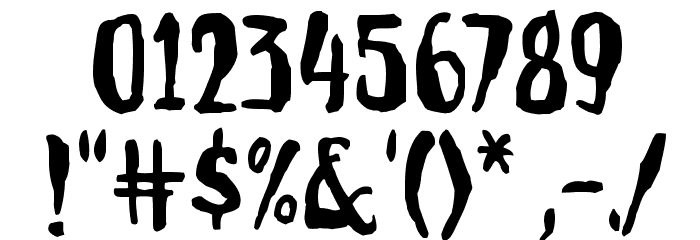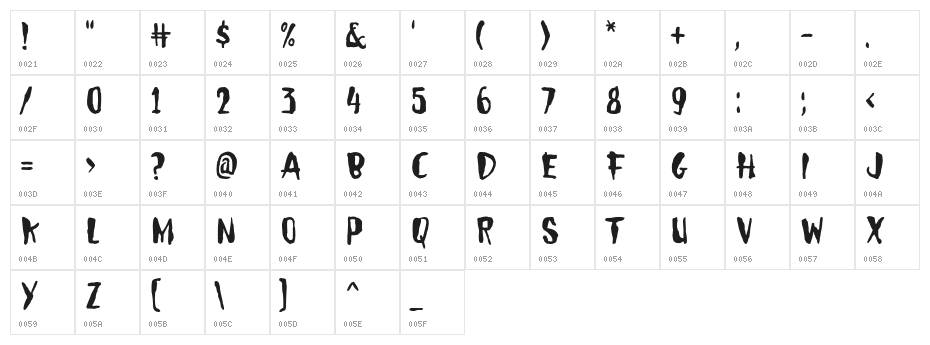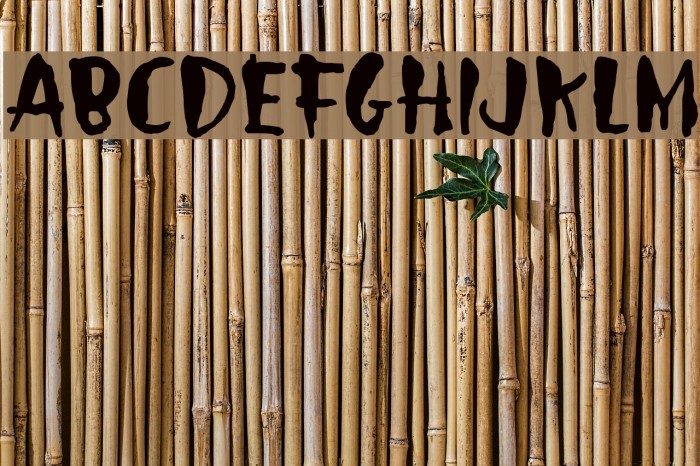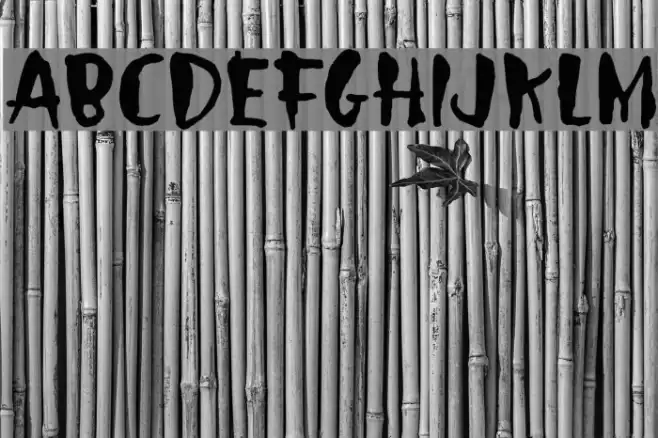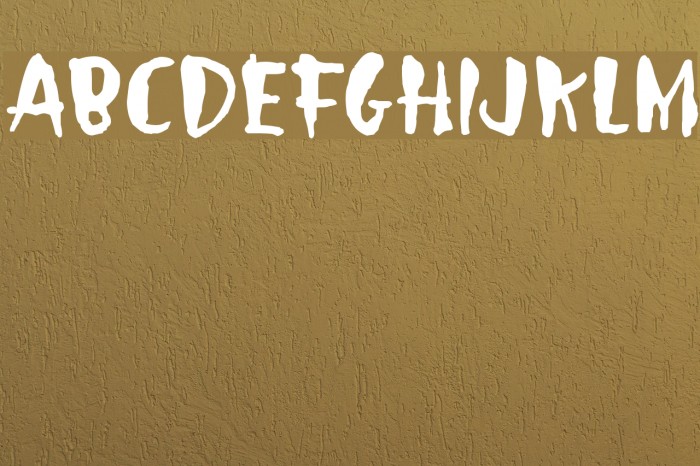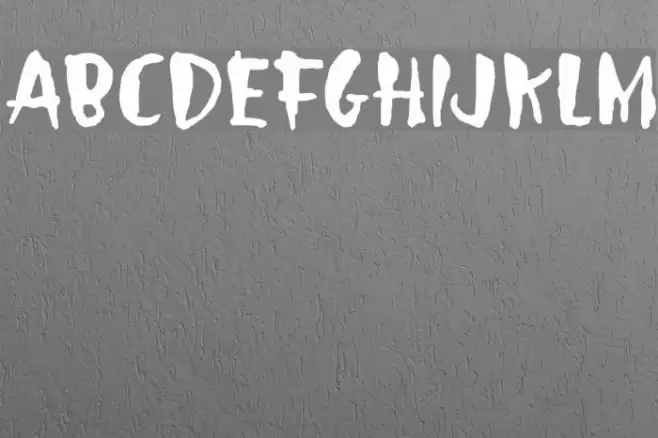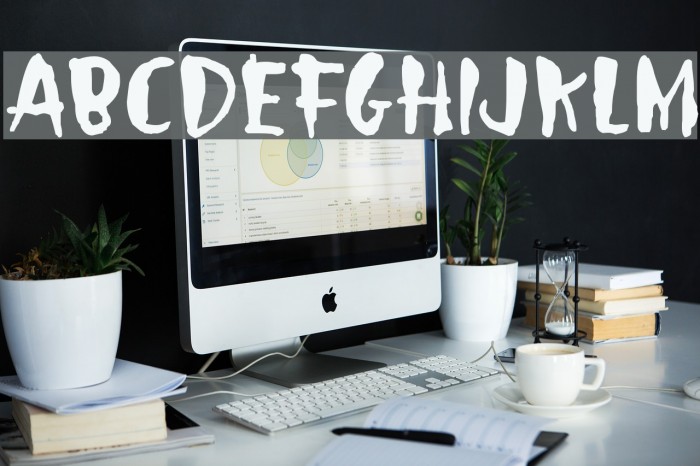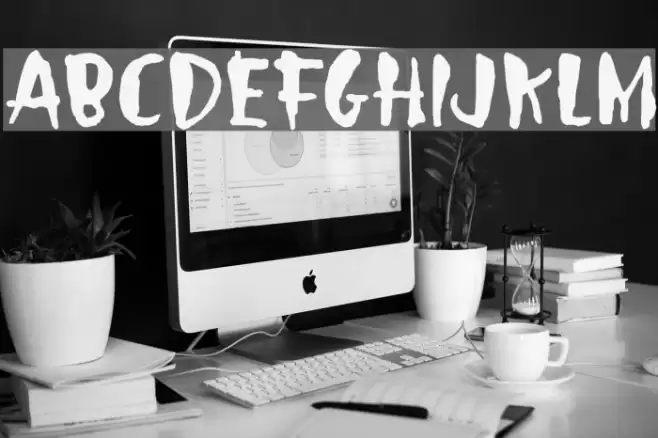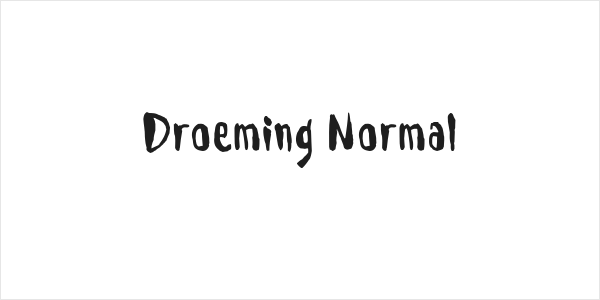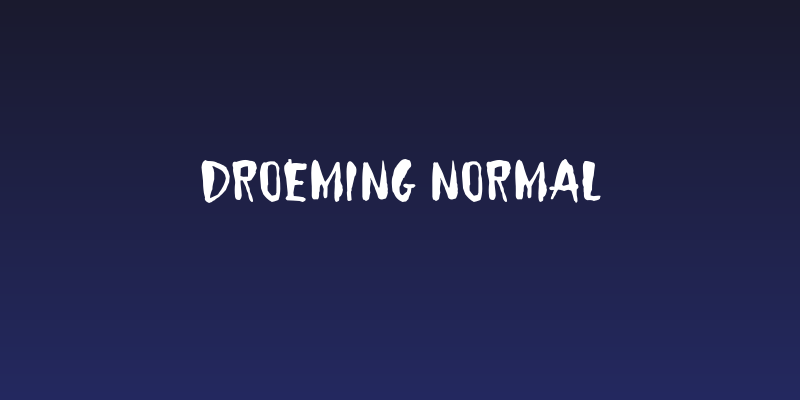
Droeming Normal Font
Droeming Normal Description
This font features a bold and expressive style with a hand-drawn appearance. The characters are irregular and organic, giving it a unique and artistic feel. The uppercase and lowercase letters have a playful, almost whimsical quality, with varying stroke thicknesses that add to its dynamic look. The numbers and special characters maintain this hand-crafted aesthetic, making the font suitable for creative and informal designs. Its distinctive style is perfect for projects that require a personal touch or an artistic flair.
| Proposed Projects | Ideal for posters, album covers, artistic branding, and creative invitations. |